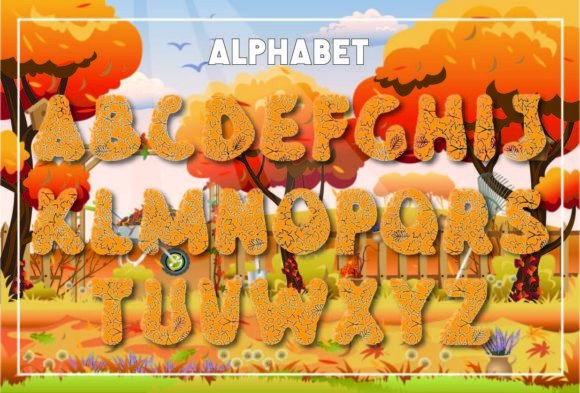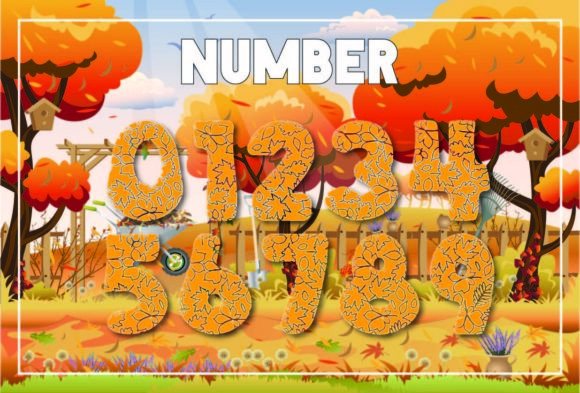
Introducing Fall Font: The Perfect Addition to Your Seasonal Designs
As the leaves change colors and the air grows crisper, designers and crafters begin to think about the aesthetic of the Fall season. One of the most important elements of any design is the font, and that’s where Fall Font comes in. This thick lettered and incredibly unique decorative font is perfect for adding a touch of autumnal charm to your projects.
What Makes Fall Font So Special?
Fall Font is a one-of-a-kind typeface that is sure to make your designs stand out. Its thick, bold letters are perfect for creating eye-catching headlines and titles, while its unique decorative elements evoke the feeling of fall. The font is highly versatile and can be used for a wide range of design ideas, from seasonal greeting cards and invitations to social media graphics and blog posts.
Design Ideas to Get You Started
So, how can you use Fall Font in your designs? Here are a few ideas to get you started:
- Fall-themed party invitations: Create custom invitations for your fall-themed party or event using Fall Font. You can add decorative elements like leaves, pumpkins, or acorns to really make it pop.
- Seasonal greeting cards: Design beautiful greeting cards for friends and family using Fall Font. You can add photos, illustrations, or other design elements to make it extra special.
- Social media graphics: Use Fall Font to create eye-catching social media graphics that showcase your favorite fall activities, such as apple picking or hayrides.
- Blog posts and articles: Add a touch of fall flair to your blog posts and articles using Fall Font. You can use it for headings, titles, or even pull quotes.
- Crafting projects: Fall Font is also perfect for crafters who love to make handmade cards, scrapbook pages, or other paper crafts.
Tips for Using Fall Font
Here are a few tips for using Fall Font in your designs:
- Experiment with different colors: Fall Font looks great in a variety of colors, from warm autumnal hues like orange and red to rich earthy tones like brown and green.
- Mix and match with other fonts: Don’t be afraid to pair Fall Font with other fonts to create a unique look. A bold, sans-serif font like Arial or Helvetica can provide a nice contrast to the decorative elements of Fall Font.
- Add decorative elements: Take your designs to the next level by adding decorative elements like leaves, flowers, or other seasonal graphics.
Where to Use Fall Font
Fall Font is a versatile typeface that can be used in a wide range of design projects, including:
- Digital designs: Use Fall Font in your digital designs, such as social media graphics, blog posts, and email newsletters.
- Print designs: Fall Font is also perfect for print designs, such as business cards, brochures, and flyers.
- Crafting projects: As mentioned earlier, Fall Font is great for handmade cards, scrapbook pages, and other paper crafts.
Fall Font is a unique and versatile decorative font that is perfect for adding a touch of autumnal charm to your designs. With its thick, bold letters and decorative elements, it’s sure to make your designs stand out. Whether you’re a designer, crafter, or simply someone who loves the fall season, Fall Font is a great addition to your design toolkit.
Get Ready to Fall in Love with Fall Font